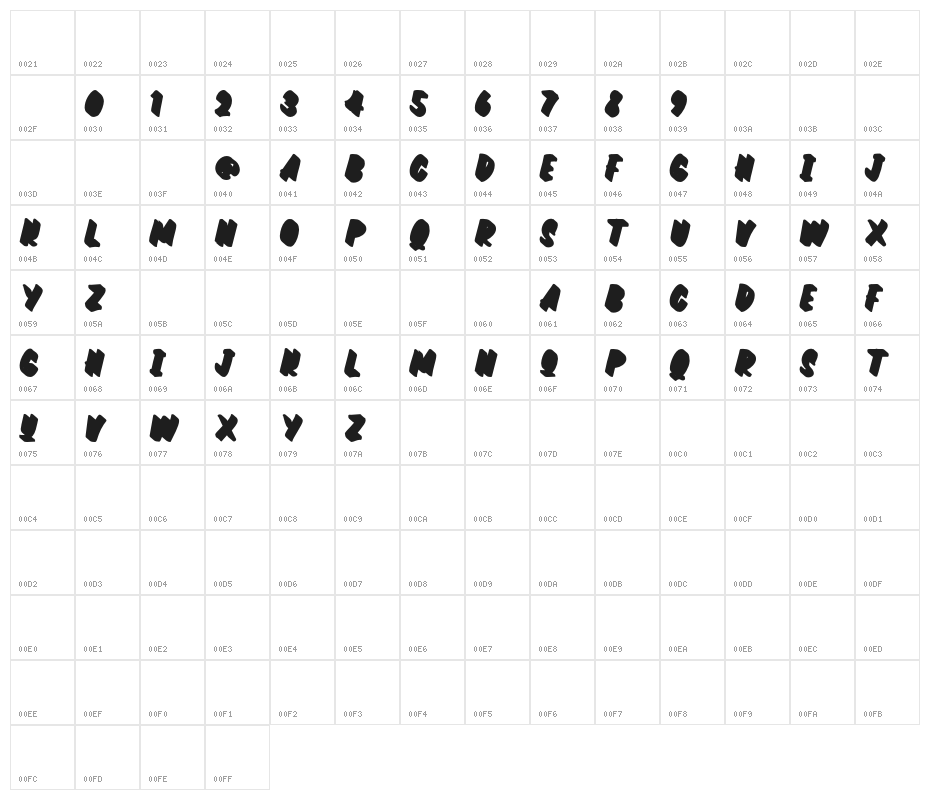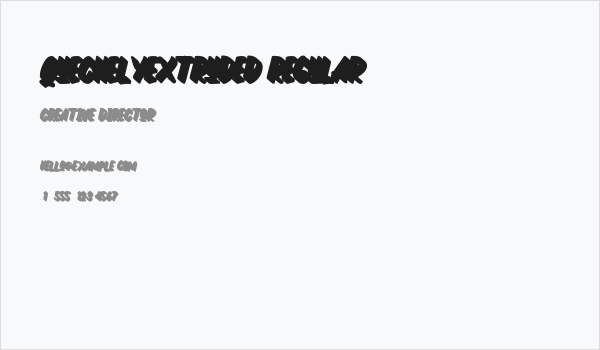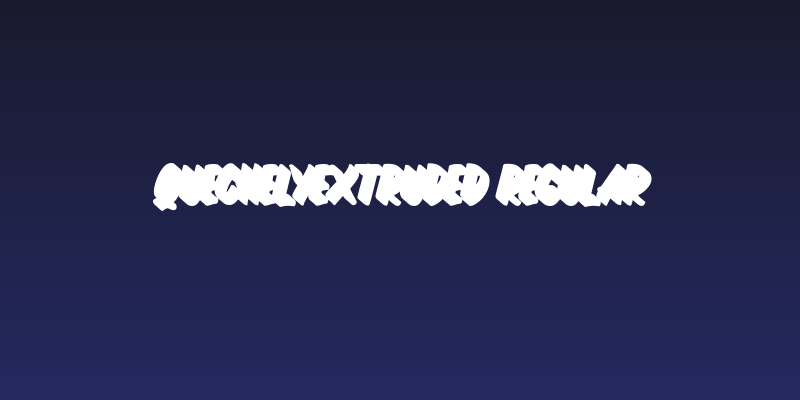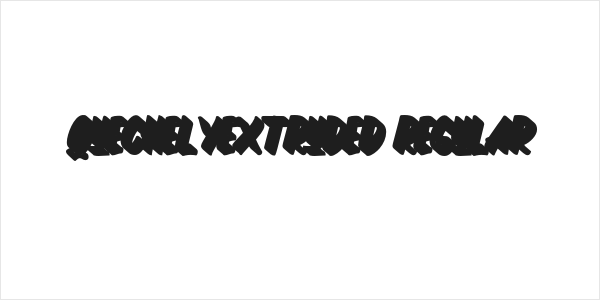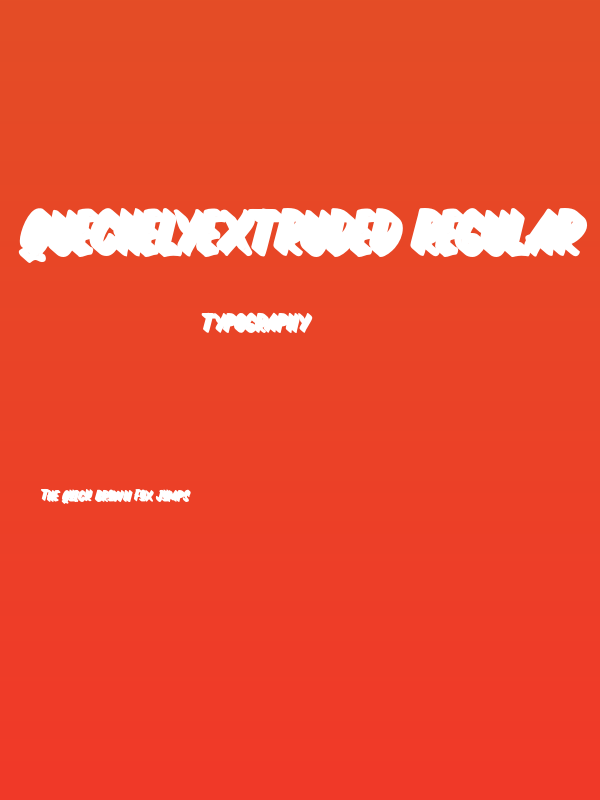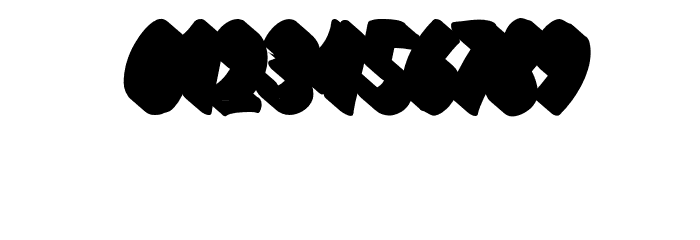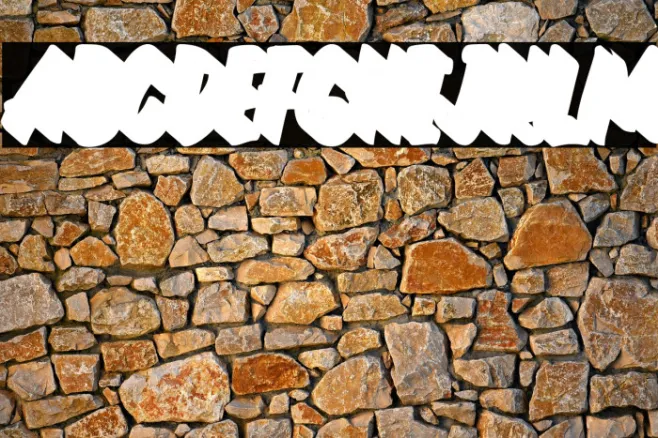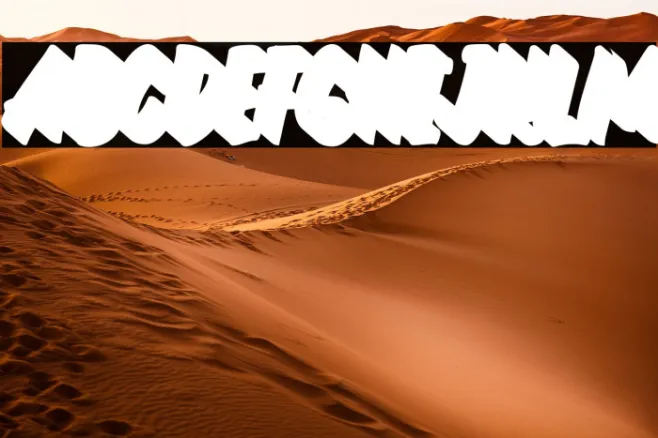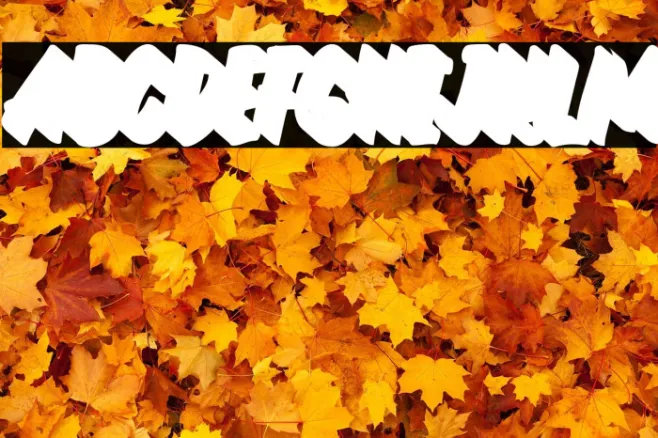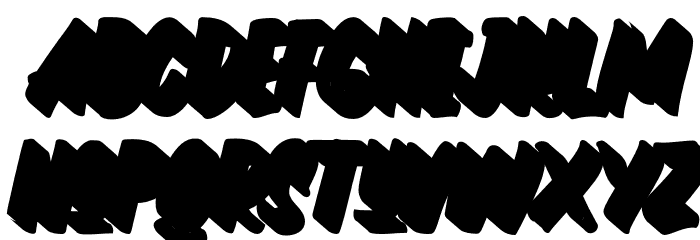
QuechelyExtruded-Regular Font
QuechelyExtruded-Regular Description
This font features a bold and dynamic style with a three-dimensional extruded effect. The characters are thick and robust, creating a strong visual impact. The uppercase and lowercase letters maintain a consistent weight, contributing to a cohesive look. The numbers and special characters are equally bold, ensuring uniformity across all elements. The font's design is playful yet assertive, making it ideal for attention-grabbing headlines or creative projects that require a standout typeface.